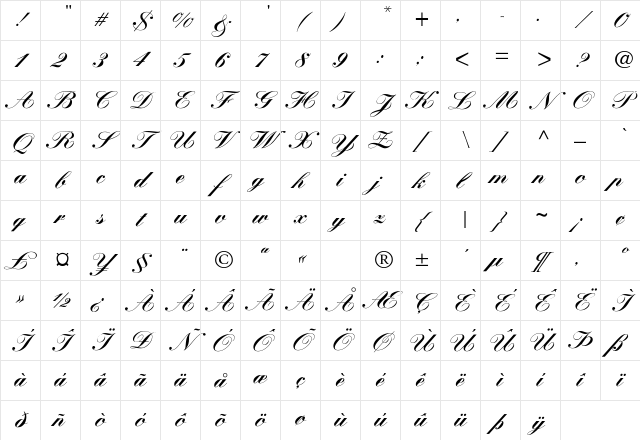
WynnerockScript-Black Regular
Complete WynnerockScript-Black Regular glyph index. Displaying only characters natively supported by WynnerockScript-Black Regular font.
Design Context for WynnerockScript-Black
WynnerockScript-Black flows with the natural rhythm of handwritten lettering, making it ideal for designs that call for warmth and personal expression.
Font Pairing: Combine WynnerockScript-Black with a simple geometric sans for maximum contrast - the tension between flowing curves and clean structure is a classic typographic pairing.
Pro Tip: Use WynnerockScript-Black for short runs of text - names, titles, or taglines. Extended body copy in script faces tires the eye quickly.